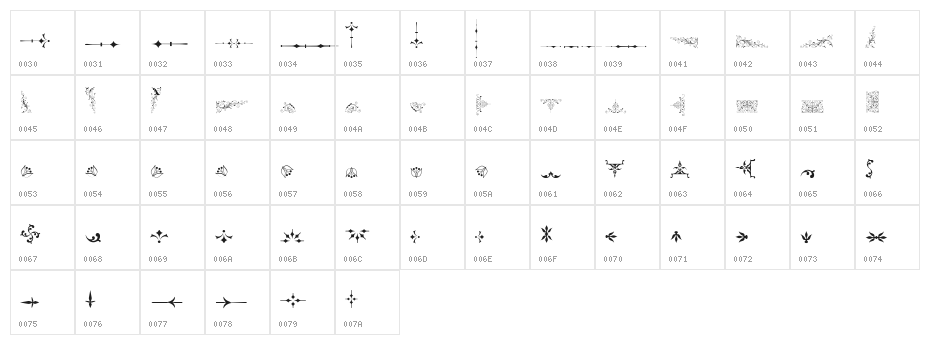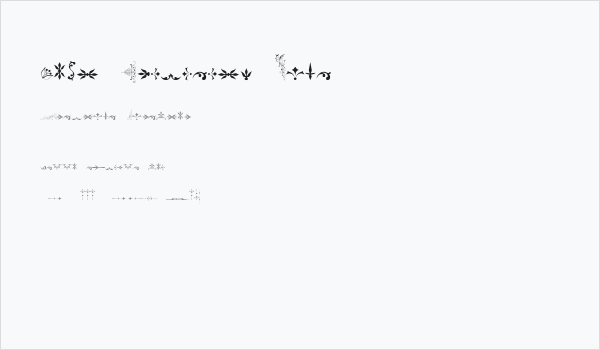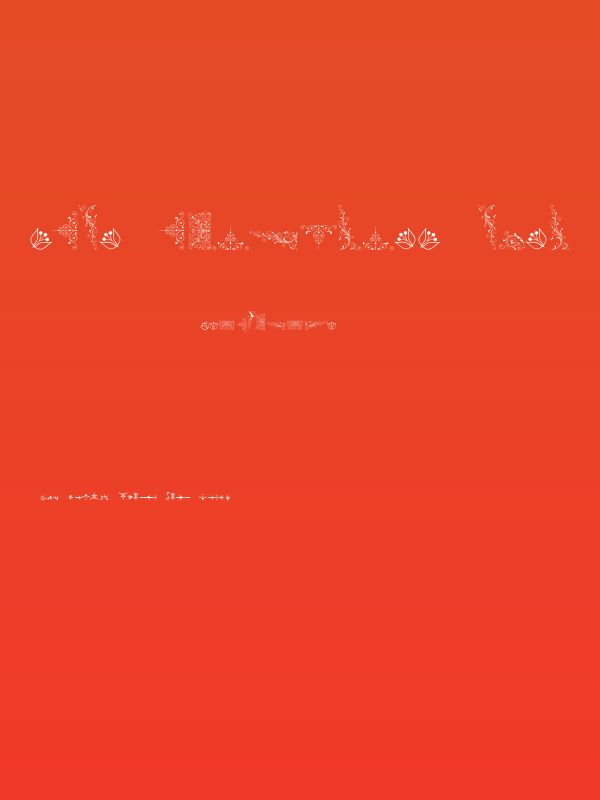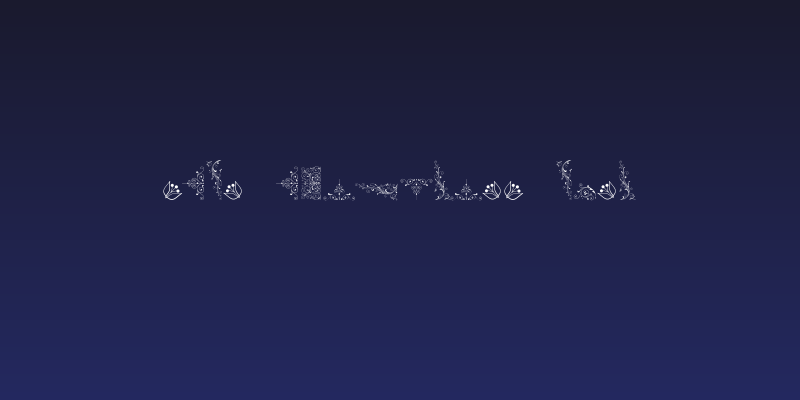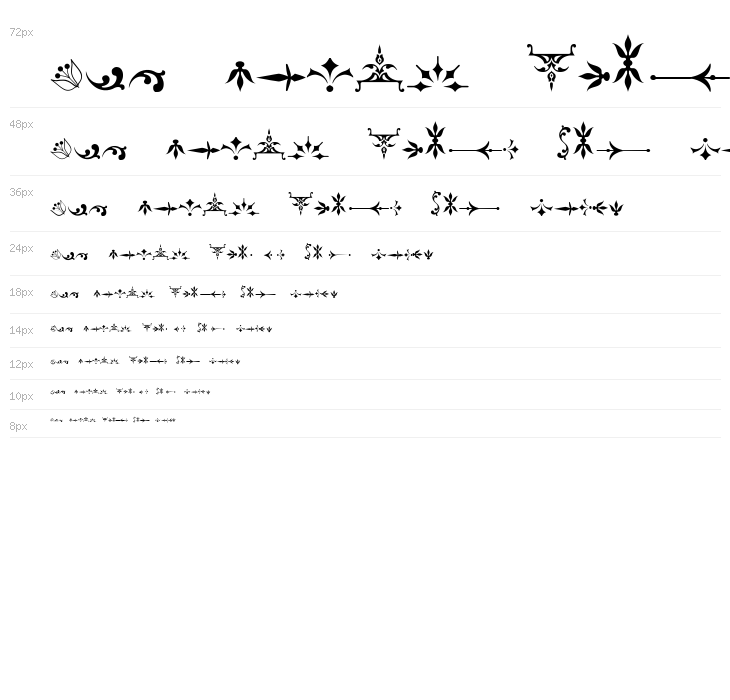
Soft Ornaments Five Font
Soft Ornaments Five Description
A decorative collection of ornate, floral, and geometric ornaments with intricate swirls, flourishes, and symmetrical motifs, suitable for embellishing text or borders.
Overall StyleVintage, Decorative
Use CaseBorders, Dividers, Decorative accents
Proposed ProjectsWedding invitations, certificates, book covers, vintage packaging, decorative borders, and digital scrapbooking.